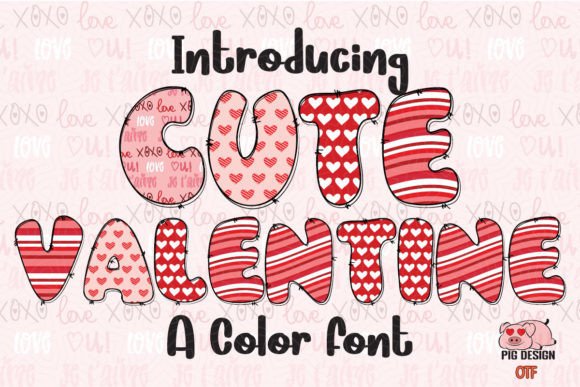
Why Cute Valentine is More Than Just a Pink Font
There is a specific kind of visual energy that a project needs when it is meant to evoke warmth, affection, or a touch of whimsy. If you have ever found yourself scrolling through hundreds of typefaces looking for something that feels organic, artistic, and undeniably sweet, you understand the struggle. Many fonts claim to be "cute," but they often end up looking amateurish or childish. Finding a typeface that balances creativity with professionalism is a rare find. That is where the Cute Valentine color font enters the conversation. It is not just a set of letters; it is a design asset that brings a distinct personality to the table, utilizing a pink color palette and creative lettering to transform standard text into a focal point.
The Anatomy of a Whimsical Typeface
What makes a font like this stand out in a crowded market of premium fonts? It comes down to the details. Cute Valentine is a color font, meaning the characters contain color data rather than just being a flat black outline. The palette relies heavily on pinks, ranging from soft blushes to deeper rose tones, giving the text a painted or illustrated quality. The lettering style bridges the gap between a handwritten font and a stylized display font. It has the irregularity and flow of hand-drawn art but maintains the consistency required for legibility.
For designers, this style is incredibly valuable. It captures the look of custom hand-lettering without the hours of work or the high cost of commissioning a calligrapher. The whimsical lettering suggests movement and joy, making it an excellent tool for visual communication where you need to convey emotion instantly. Unlike a standard sans serif font which conveys neutrality, or a rigid serif font which conveys tradition, this typeface conveys personality. It tells the viewer that the brand or project is approachable, creative, and attentive to aesthetic details.
Matching the Font to the Message: Practical Applications
Typography is not just about legibility; it is about context. A creative font like Cute Valentine fits a specific set of scenarios where a traditional corporate typeface would feel cold or out of place. Here is how you can practically apply this asset to various projects:
- Wedding Invitations and Stationery: This is the most natural fit. The pink color palette and romantic style are tailor-made for save-the-dates, menus, and thank you cards. It sets the mood immediately upon the first glance.
- Social Media Graphics: On platforms like Instagram or Pinterest, visual stops the scroll. Using Cute Valentine for headers, quotes, or promotional overlays can increase audience engagement. It adds a layer of polish that generic system fonts cannot provide.
- Product Packaging: If you are selling bakery items, cosmetics, stationery, or artisanal goods, packaging design is your silent salesperson. A whimsical font suggests that the product inside is made with care and high-quality ingredients.
- Wall Displays and Posters: Because it is a display font, it works best at larger sizes. Think of boutique signage, inspirational art prints for home decor, or event posters. At a large scale, the color details and brush strokes become part of the art.
- Logo Design: While it may be too detailed for every type of logo, for brands in the lifestyle, fashion, or creative sectors, it can serve as a primary logotype or a secondary accent font.
Integrating Cute Valentine into Your Brand Identity
Building a strong brand identity requires consistency. When you choose a font, you are choosing a voice for your brand. Cute Valentine speaks with a tone that is friendly, youthful, and artistic. If you are a small business owner or a content creator, aligning your typography with your values is crucial.
For example, if you run a lifestyle blog, using this font for your chapter headings or pull quotes can break up the text and make the reading experience more enjoyable. If you are a creative entrepreneur selling digital products, such as planners or stickers, the font adds perceived value to your design assets. It shows that you care about the aesthetic appeal of your deliverables.
However, modern typography is often about balance. Because Cute Valentine is a highly stylized script font, it is generally not suitable for long paragraphs of body text. The eye needs a resting place. This is where font pairing comes into play. You should pair this creative typeface with a clean, neutral font—perhaps a geometric sans serif font like Montserrat, Poppins, or Lato. This contrast ensures that your main message remains readable while the headings retain their charm. The whimsy of the display font highlights the structure of the body text, creating a visual hierarchy that guides the reader naturally.
Technical Considerations and Usability
When working with a color font, there are a few practical things to keep in mind to ensure the best professional presentation. First, consider the background. Since Cute Valentine features a specific pink color palette, it will stand out best against neutral backgrounds like white, cream, light gray, or even dark charcoal. Placing it on a busy, multi-colored background might reduce the legibility of the color details within the letters.
Ultimately, choosing a font is about finding the right voice. When your project calls for something that is sweet, artistic, and undeniably charming, having a typeface like this in your toolkit ensures you are always ready to deliver exactly that. It proves that typography can be functional, beautiful, and full of heart all at once.